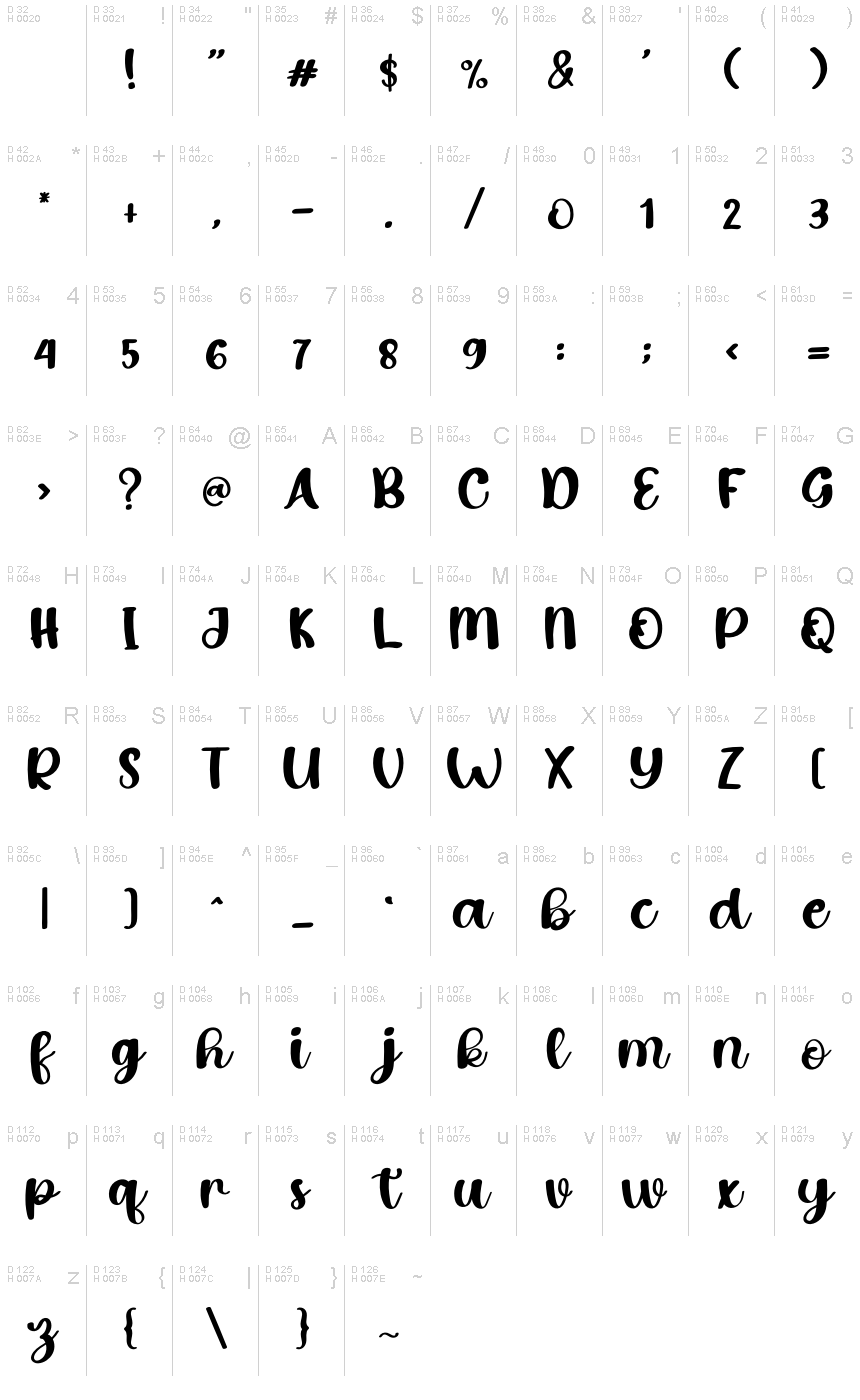
Hearst
Hearst is a bold, brush-style font created by the talented designers at PiPi Creative. Evoking a sense of effortless sophistication and artistic flair, this captivating typeface boasts a striking, hand-lettered aesthetic that commands attention. With its dynamic, expressive strokes and seamless fluidity, Hearst effortlessly conveys a sense of energy and movement, making it an ideal choice for branding, editorial design, and creative projects that seek to exude a touch of elegance and artistry.
Hearst's versatility extends across a wide range of applications, from stunning headlines and impactful logos to captivating titles and attention-grabbing display text. Its bold, confident presence lends itself beautifully to fashion, lifestyle, and luxury-focused designs, where it can elevate the overall aesthetic and create a lasting impression. Whether you're crafting a premium magazine spread, designing a striking web banner, or seeking to infuse your brand with a touch of refined sophistication, the Hearst font by PiPi Creative is a versatile and compelling choice.